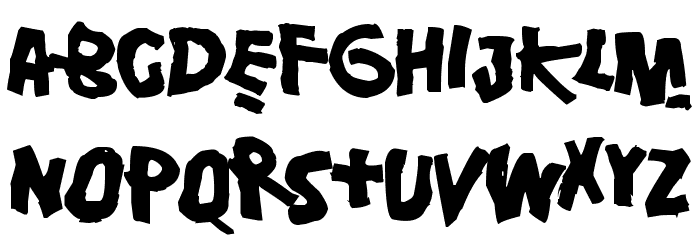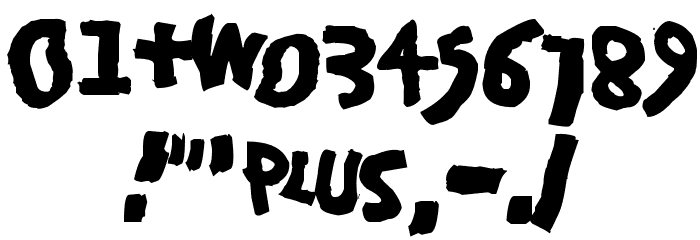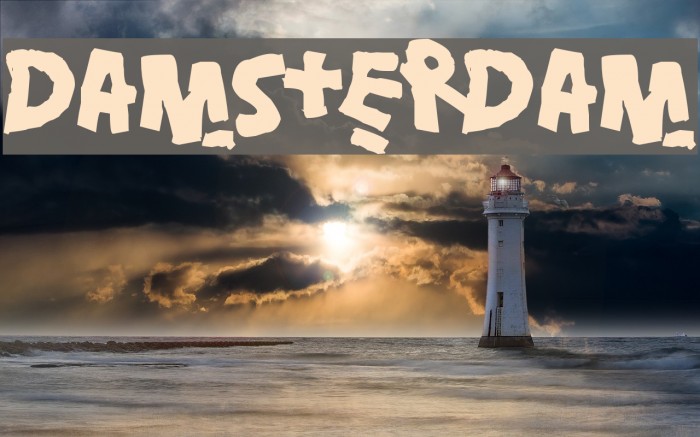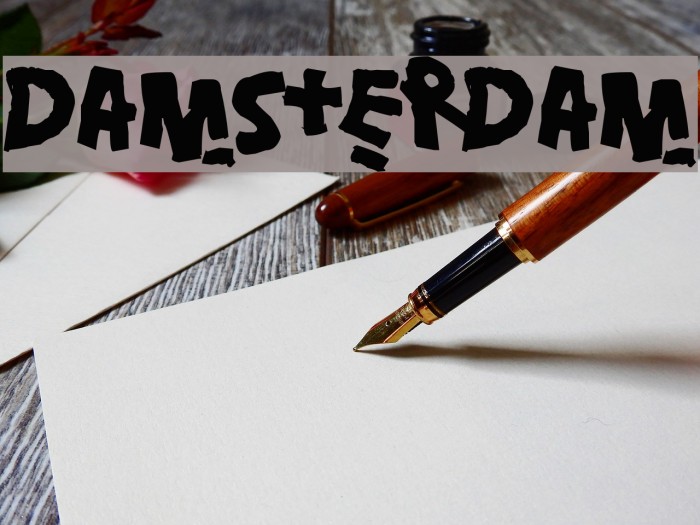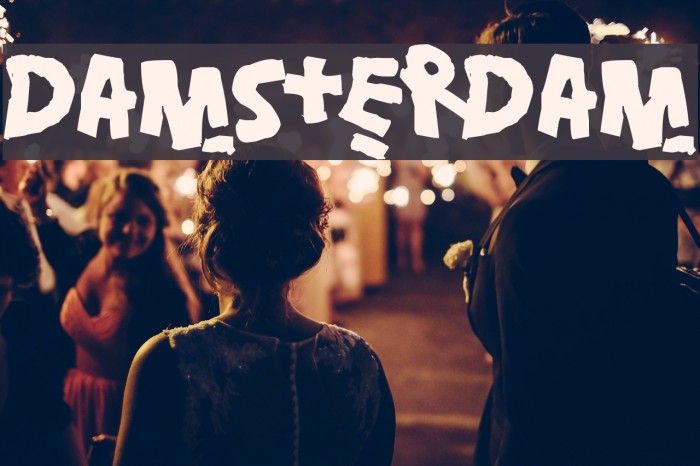
Damsterdam Font
This font features a bold and expressive style with a hand-drawn appearance. The characters are irregular and dynamic, giving a sense of movement and energy. The strokes are thick and uneven, contributing to a playful and artistic vibe. The uppercase and lowercase letters maintain a consistent style, while the numbers and special characters complement the overall aesthetic. This font's unique and bold design makes it stand out, perfect for creative and unconventional projects.
A bold, hand-drawn font with an expressive and dynamic style.
- Proposed Projects: Ideal for posters, album covers, graffiti art, and any project requiring a bold, artistic touch.